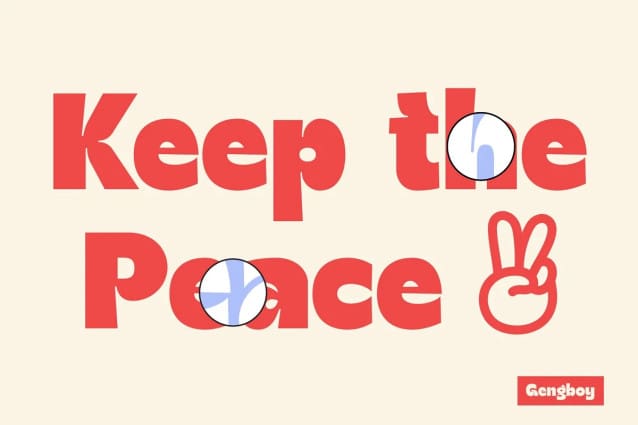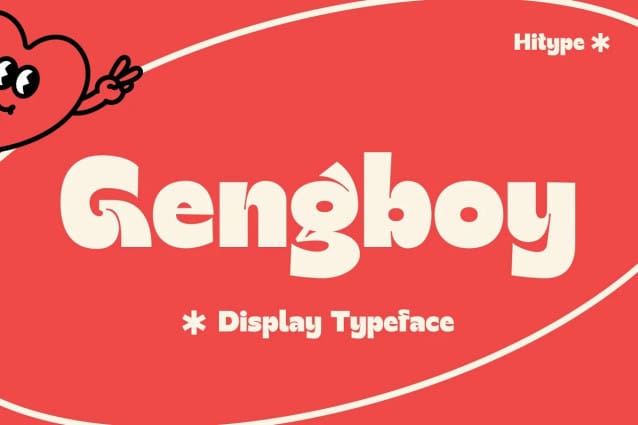
Gengboy Display Font
Gengboy Display Font, is a fun bold Sans Serif typeface featuring characters that stand out from every background. Suitable for logos, stickers, posters, packaging, branding, invitations, notes, etc.